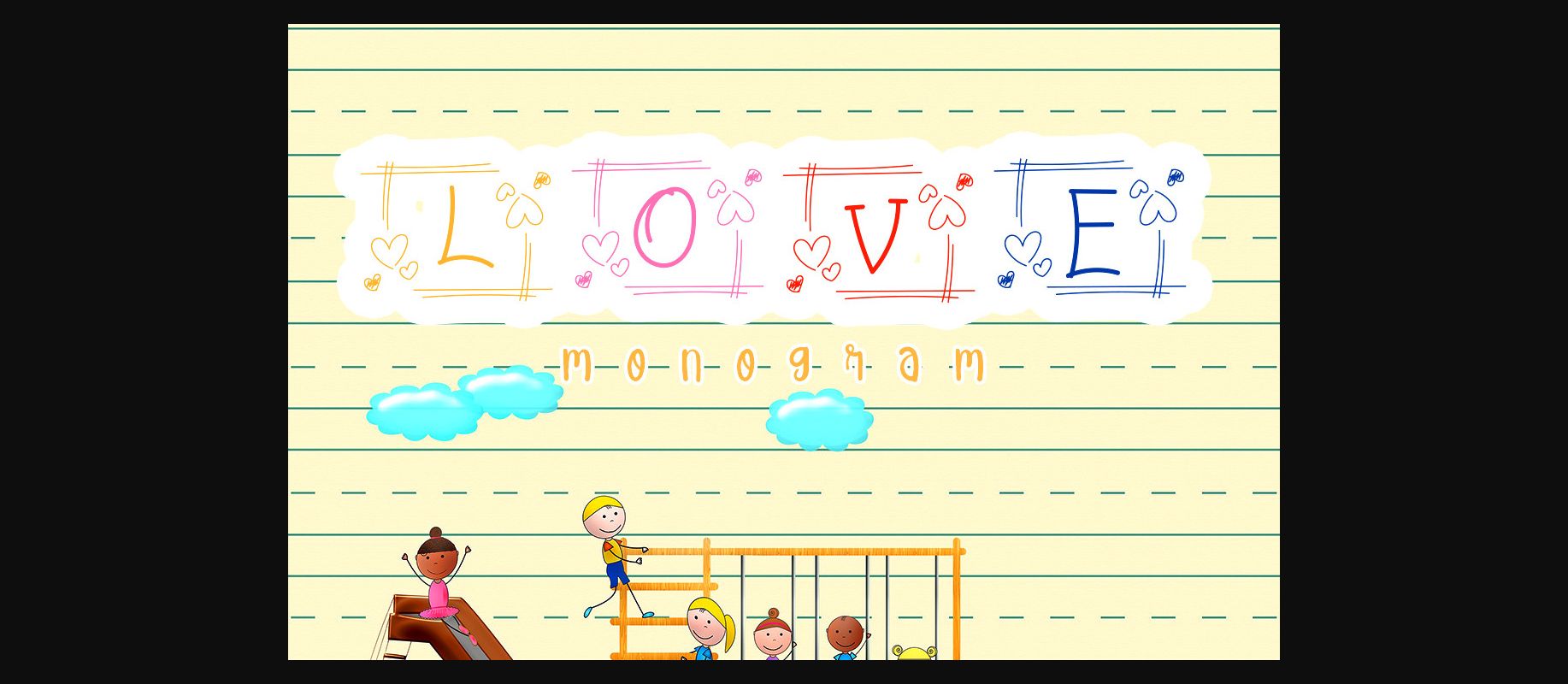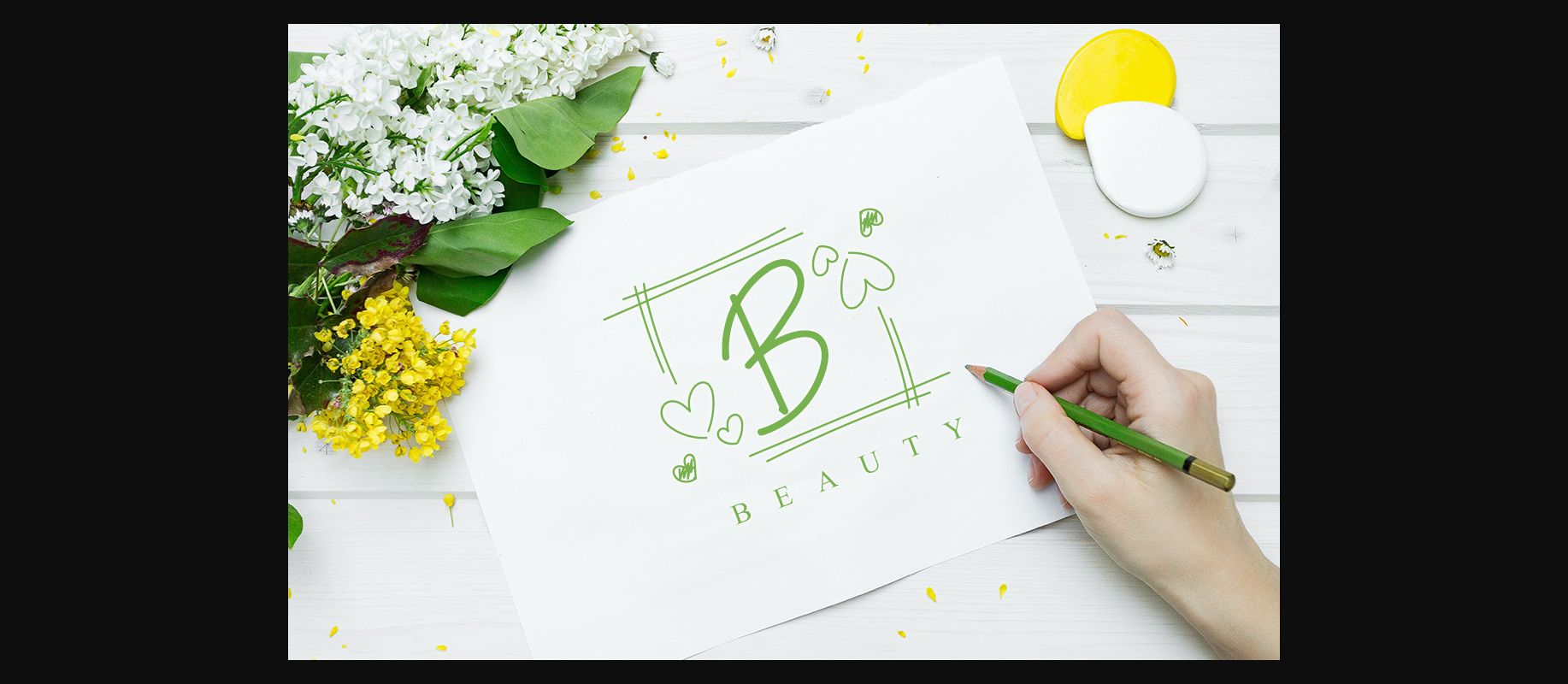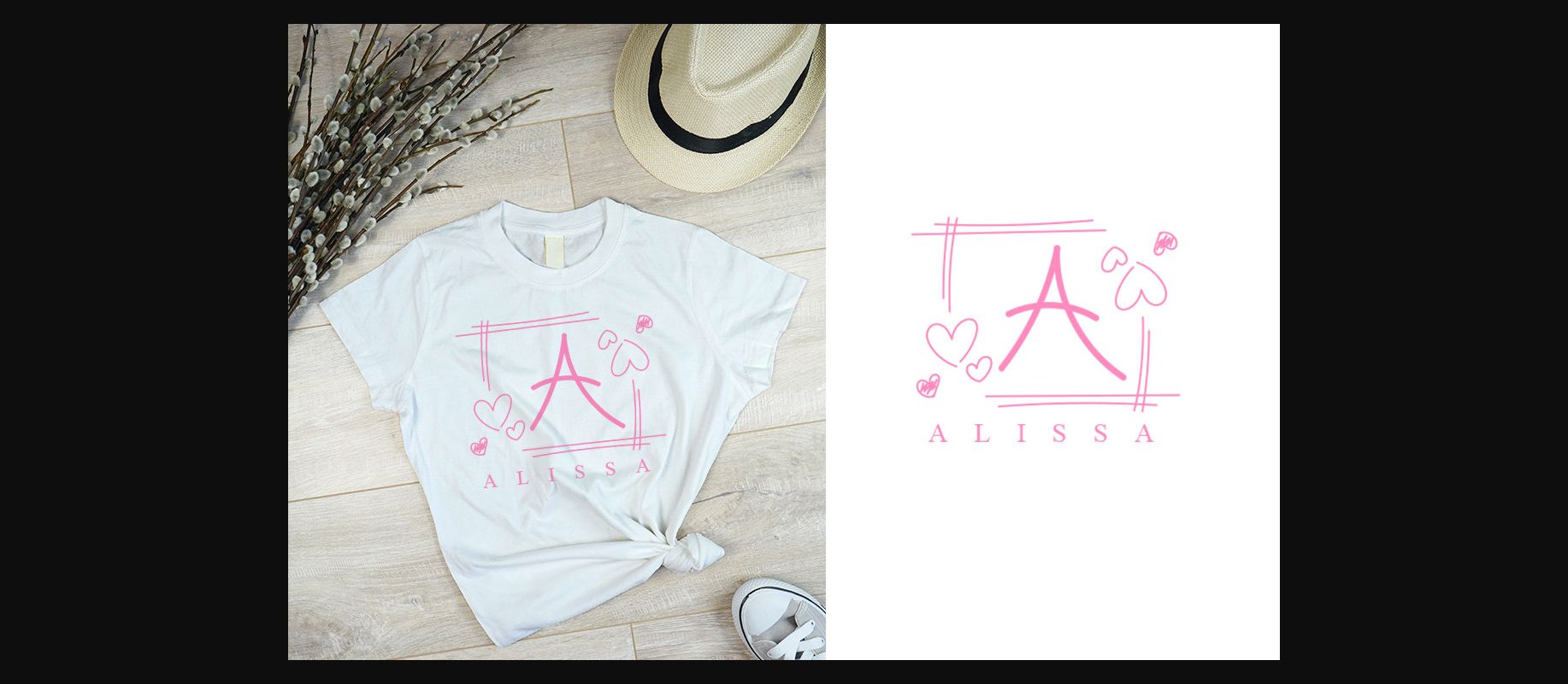
About Love Monogram Font
Love Monogram is a beautiful and sweet decorative font. Fresh, clean, and elegant, it will look amazing on a great number of products, both formal and informal. By using this font, you will add an incredibly joyful touch to your designs, and you will notice that they have never looked more beautiful!